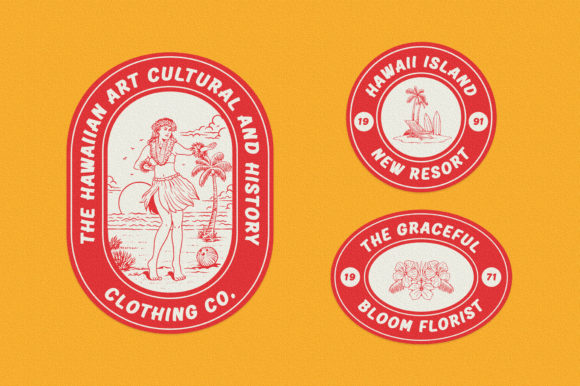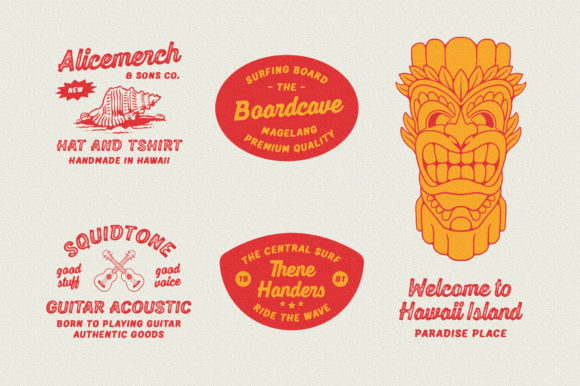
Martellas Font
Martellas is a stylish and retro inspired family font. This font reads as strong, confident, and dynamic and can add tons of stylish character to your designs.